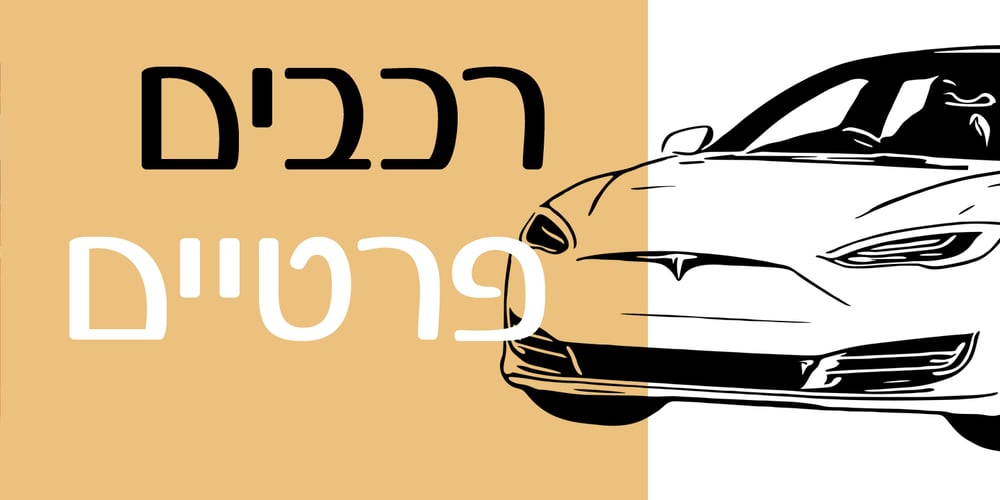
Shfutim MF
Shfutim MF font
Shfutim MF Font Family was designed by Eliyahu Fried and published by Masterfont. Shfutim MF contains 1 styles and family package options. High contrast body text of headlines will benefit from the rounded san serif font.